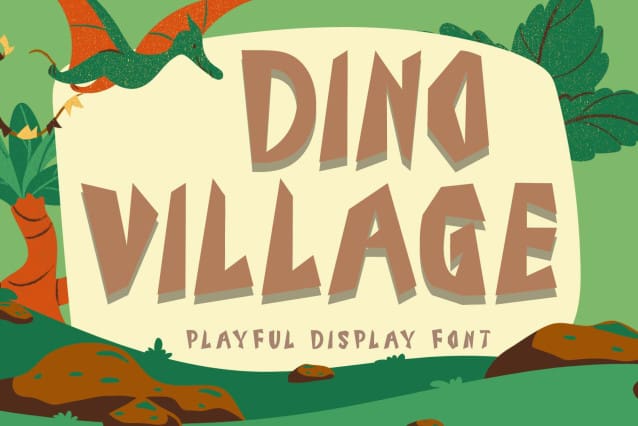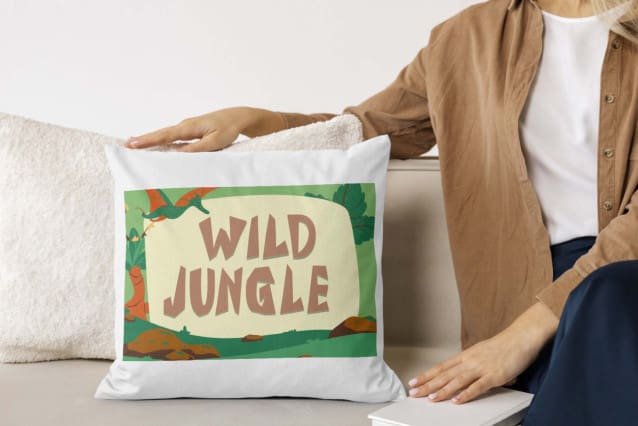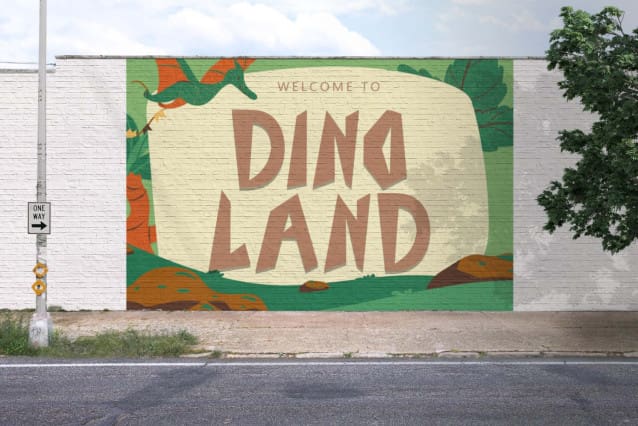
Dino Village Font
Dino Village Font is a unique and playful display font. This font is equipped with uppercase, lowercase, numerals, punctuations and multilingual support. It is very suitable for use for movie titles, cartoons, animations, posters, prints, banners, branding, stickers, logos, business branding and others.